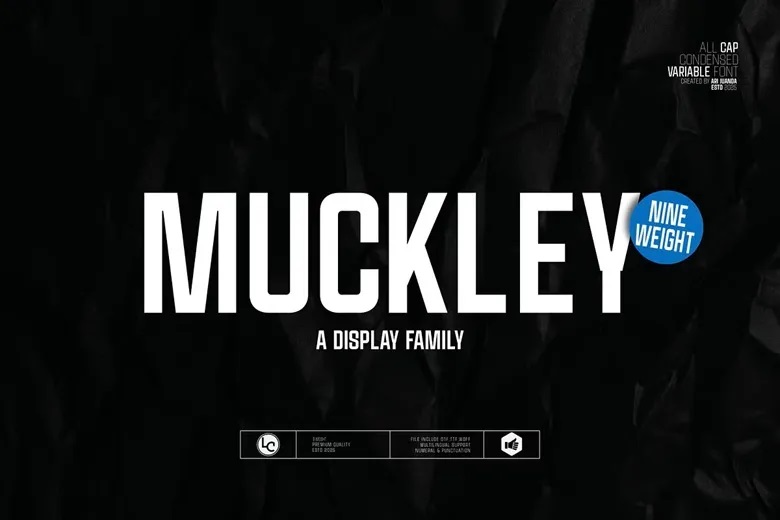
Muckley Font Family
Muckley is an elegant and modern display sans serif font family comes with nine weights and designed quite firmly, it creates a strong impression with a modern touch in the design, inspired by movie titles and it’s a condensed font.
Muckley Sans Serif Font Family